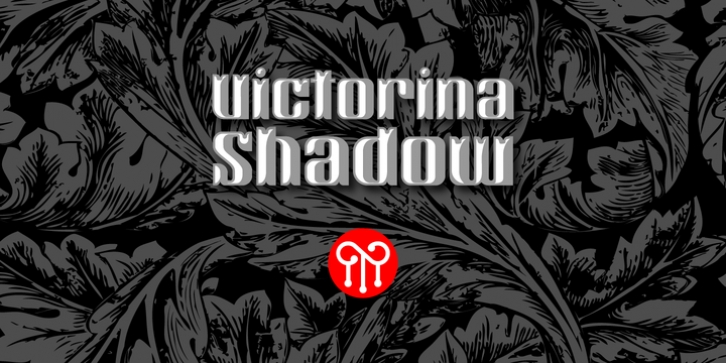
Victorina Shadow is a fantasy sans letter display, inspired by the Victorian letters whose stylistic influence dominated the scene graph of the nineteenth and Twentieth century. Victorina has a perfect structure rigorous geometry. Victorina comes in several versions, in this set you will find the Shadow version in black and italic to complement the varied repertoire of styles of Victorina family, besides providing small caps and ornaments. Victorina Shadow let to work fine fantasy headlines when they overlap in layers of different styles.